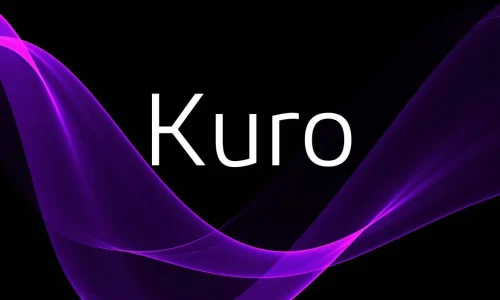
Welcome, we are going to introduce the best font. This typeface name is the Caviar Dreams Font. This elegant typeface belongs to the Sans Serif font family.
It was designed by a well-known designer called Lauren Thompson. This elegant typeface was released on 2 July 2009.
This typeface has massive language support. It can make your design readable and clean. You can use the generator tool for your urgent design projects such as poster designs, logo design, and many more. The Geomanist Font is the most alternative typeface of Caviar Dreams Font.
| Name | Caviar Dreams Font |
| Designer | Lauren Thompson |